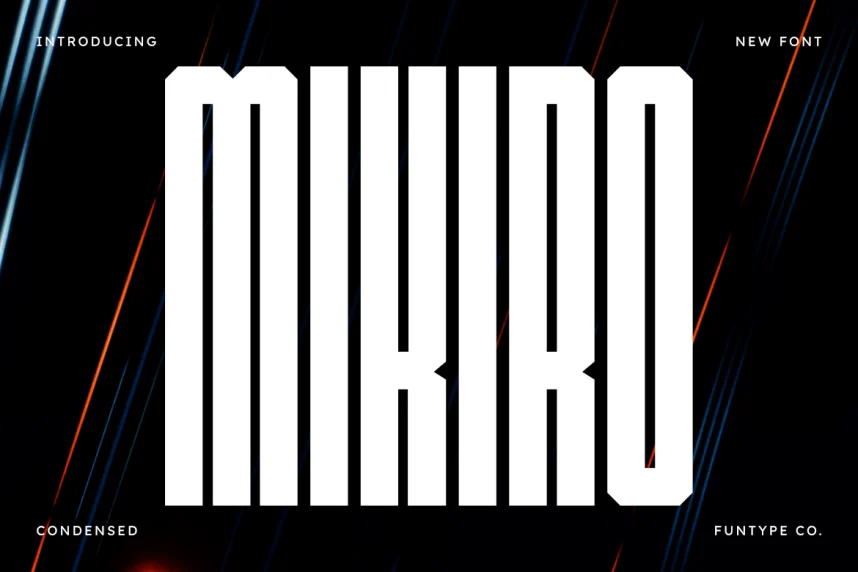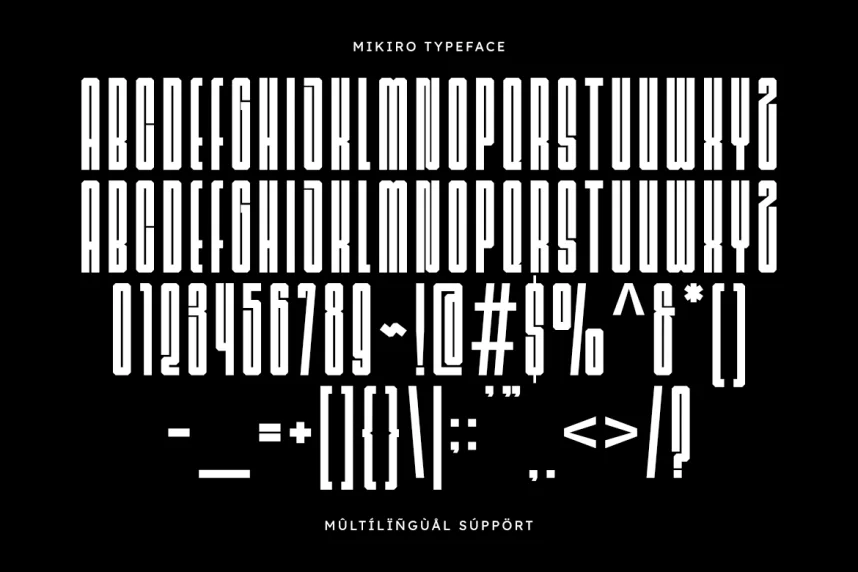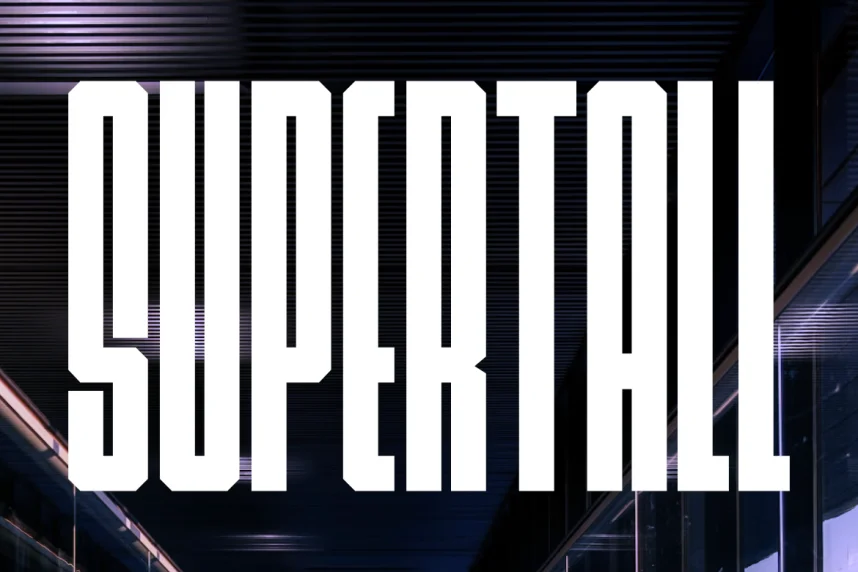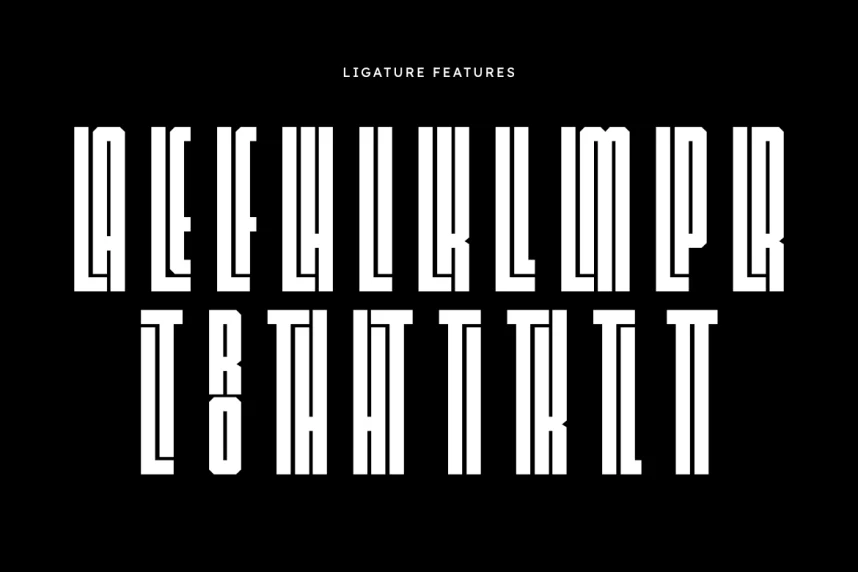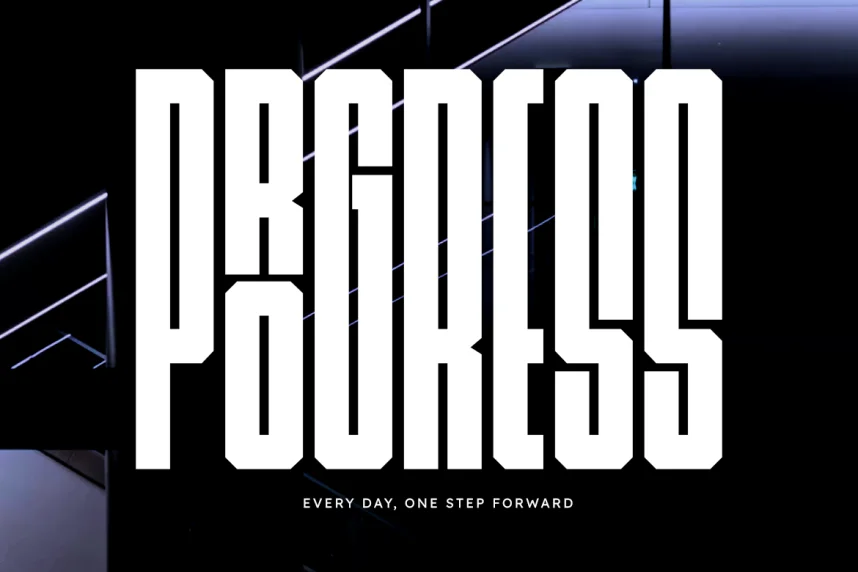
Mikiro Font is a contemporary sans-serif typeface designed for digital readability and professional branding. Its structured letterforms enhance legibility and maintain visual balance across multiple platforms.
The font includes open counters, consistent stroke widths, and minimalist terminals. Its multiple weights and stylistic alternates make it versatile for logos, headings, web interfaces, and printed materials. Mikiro combines modern design with functional readability.